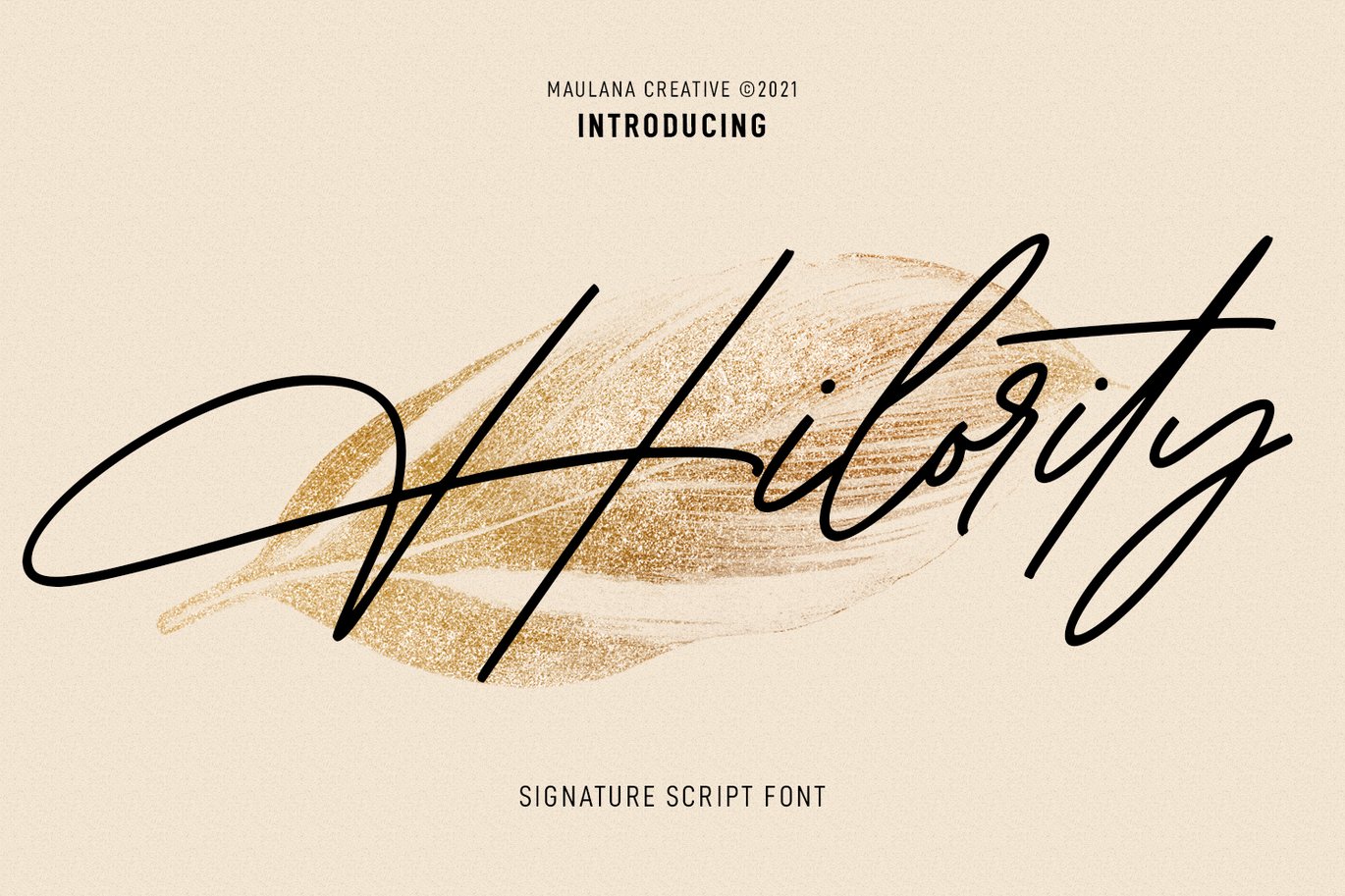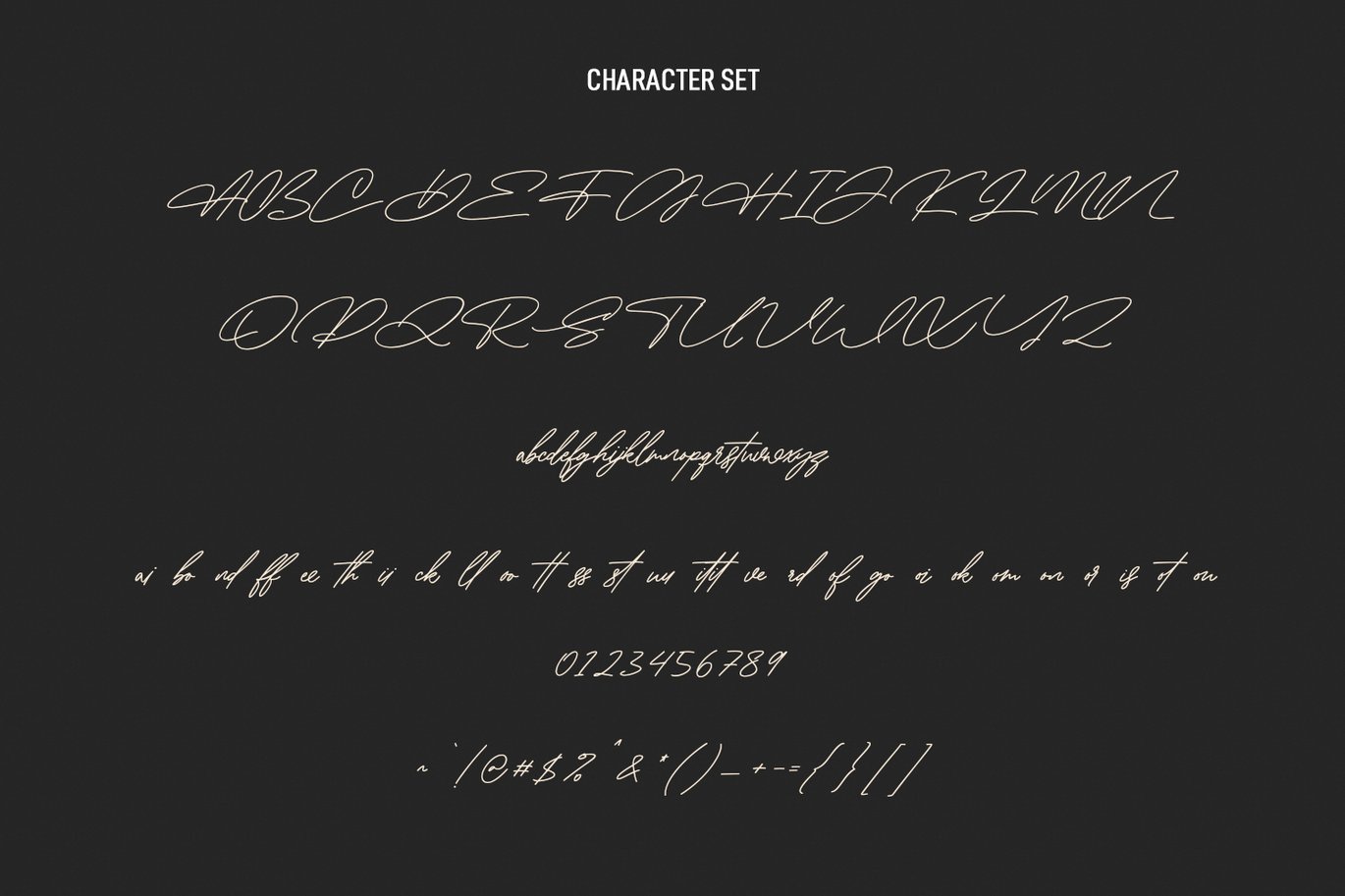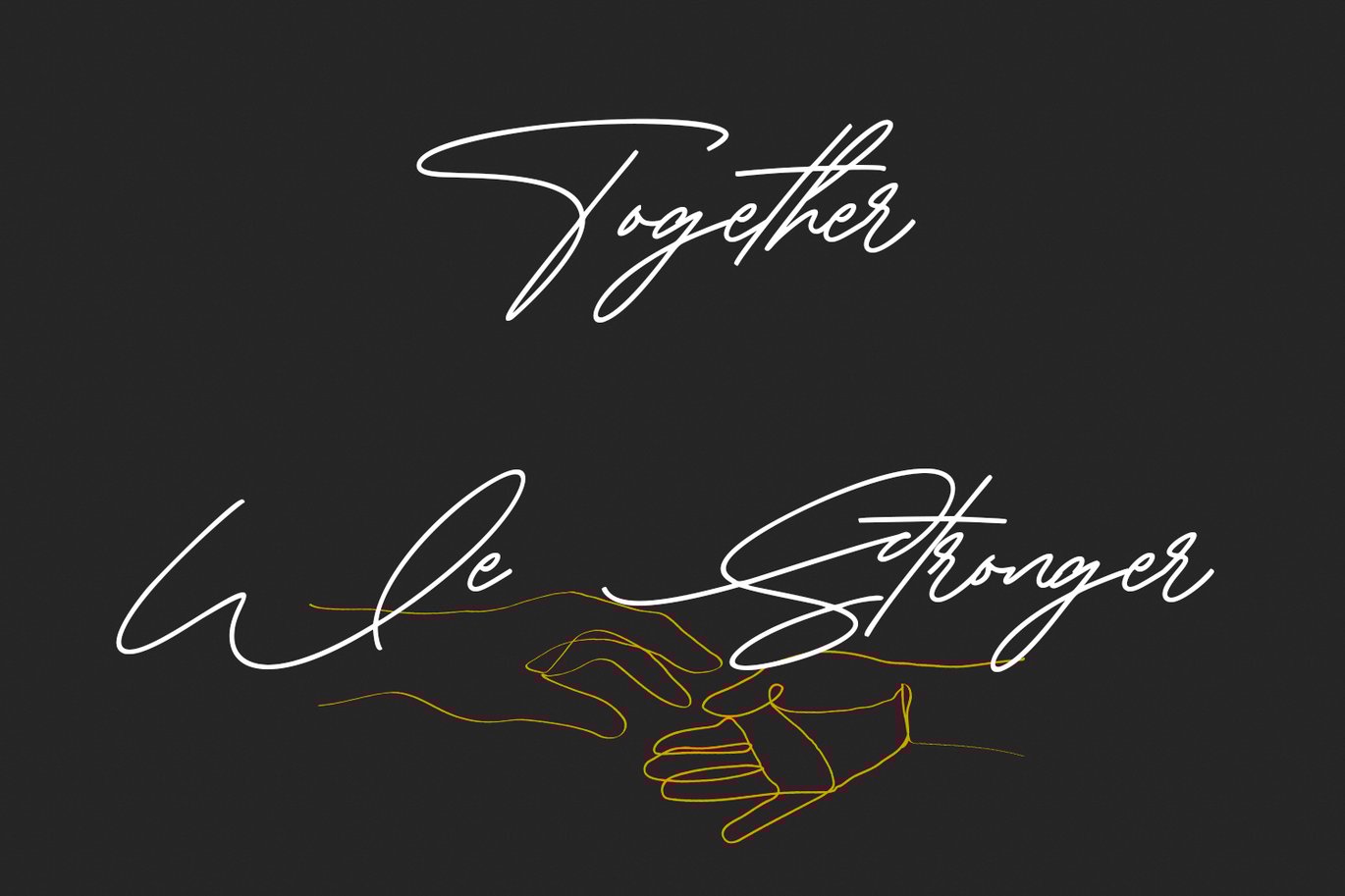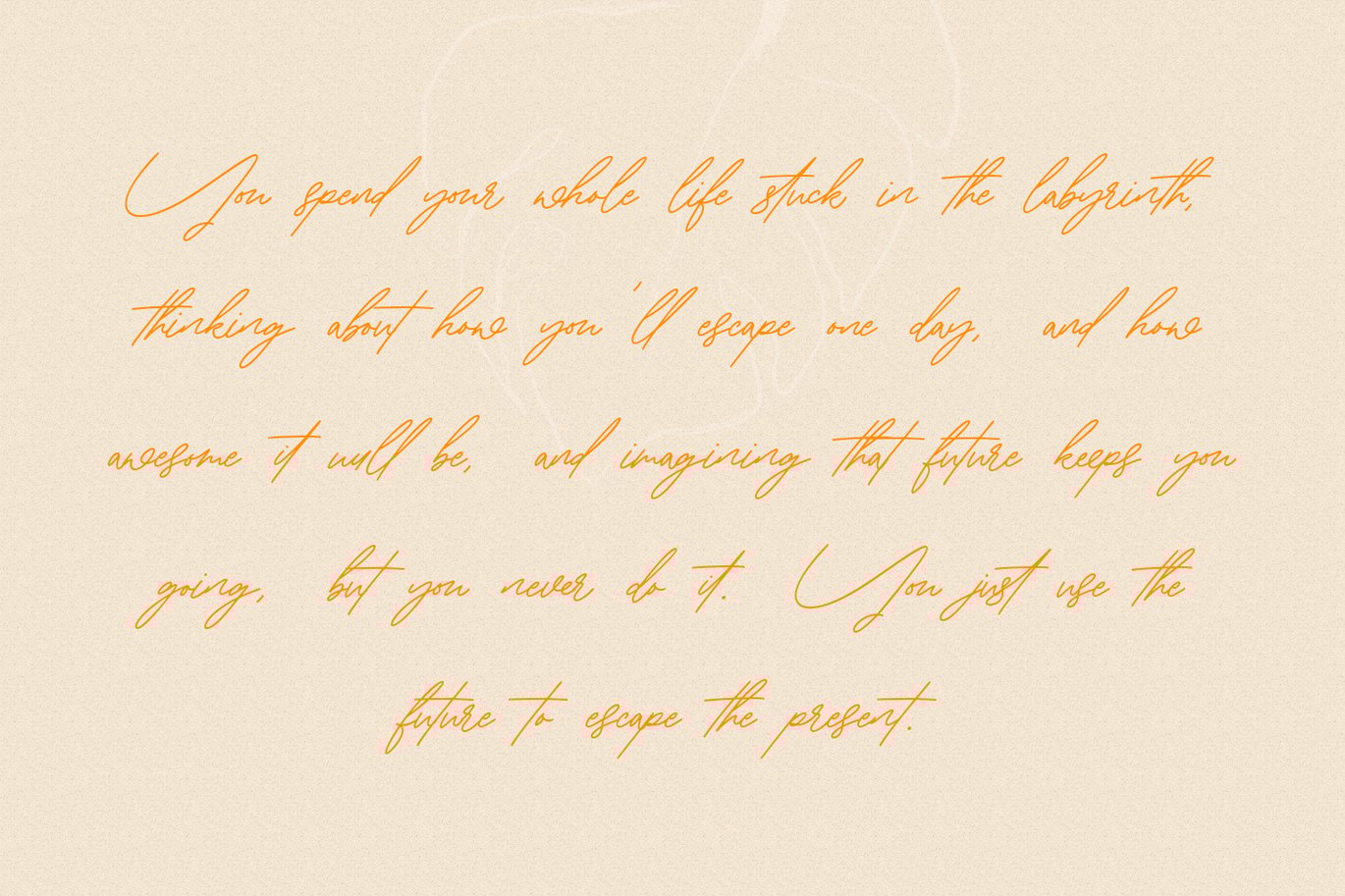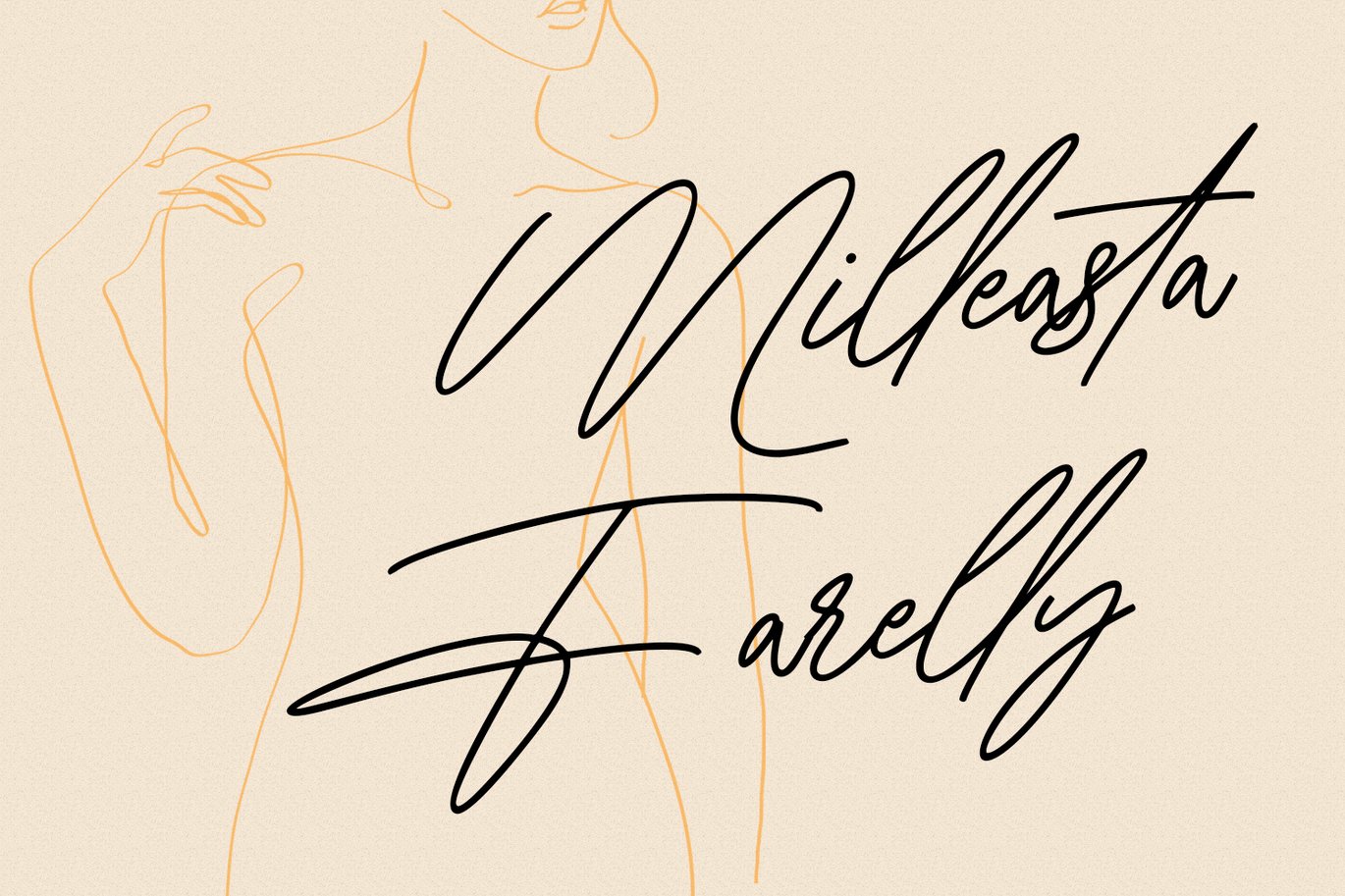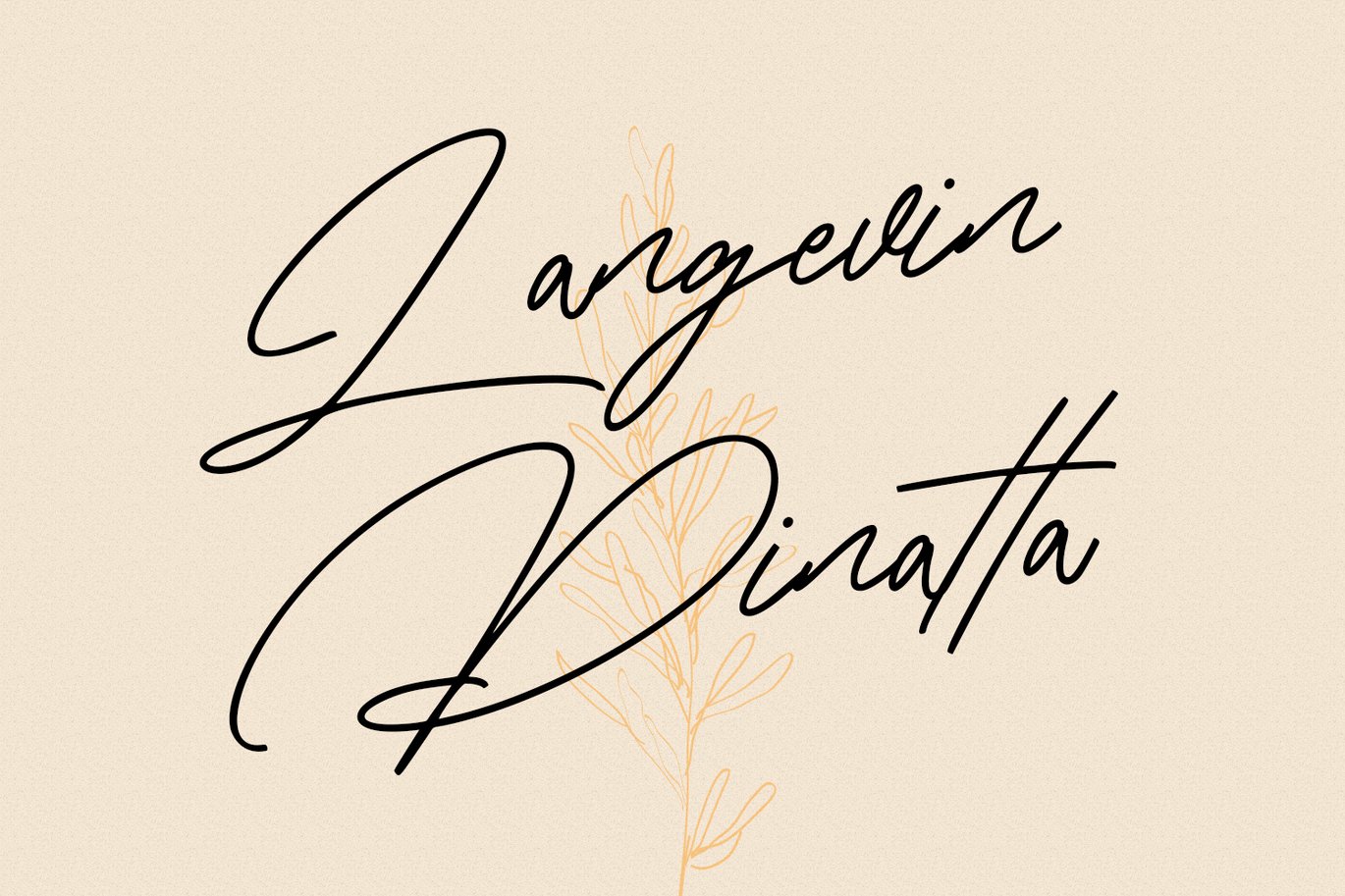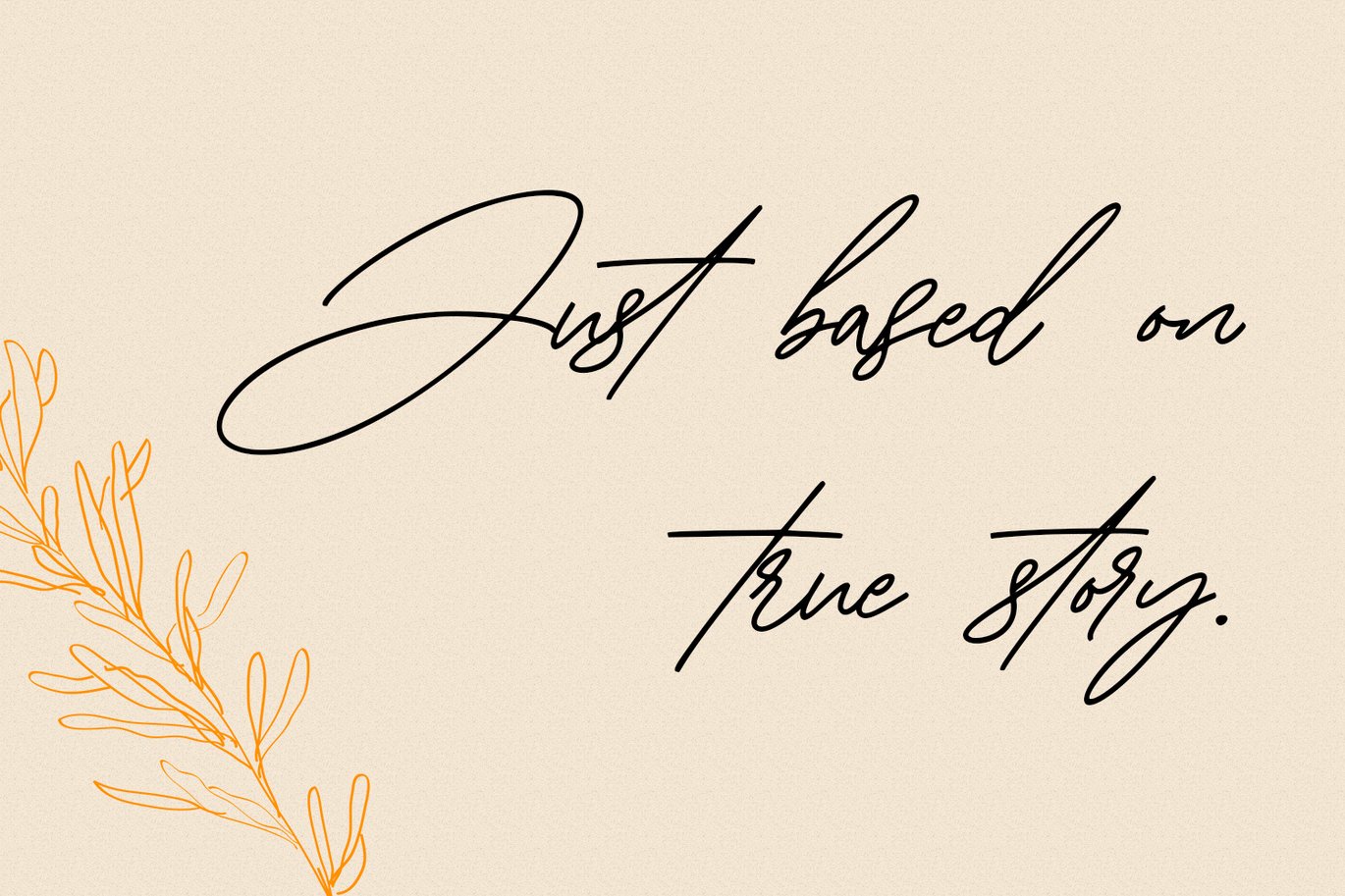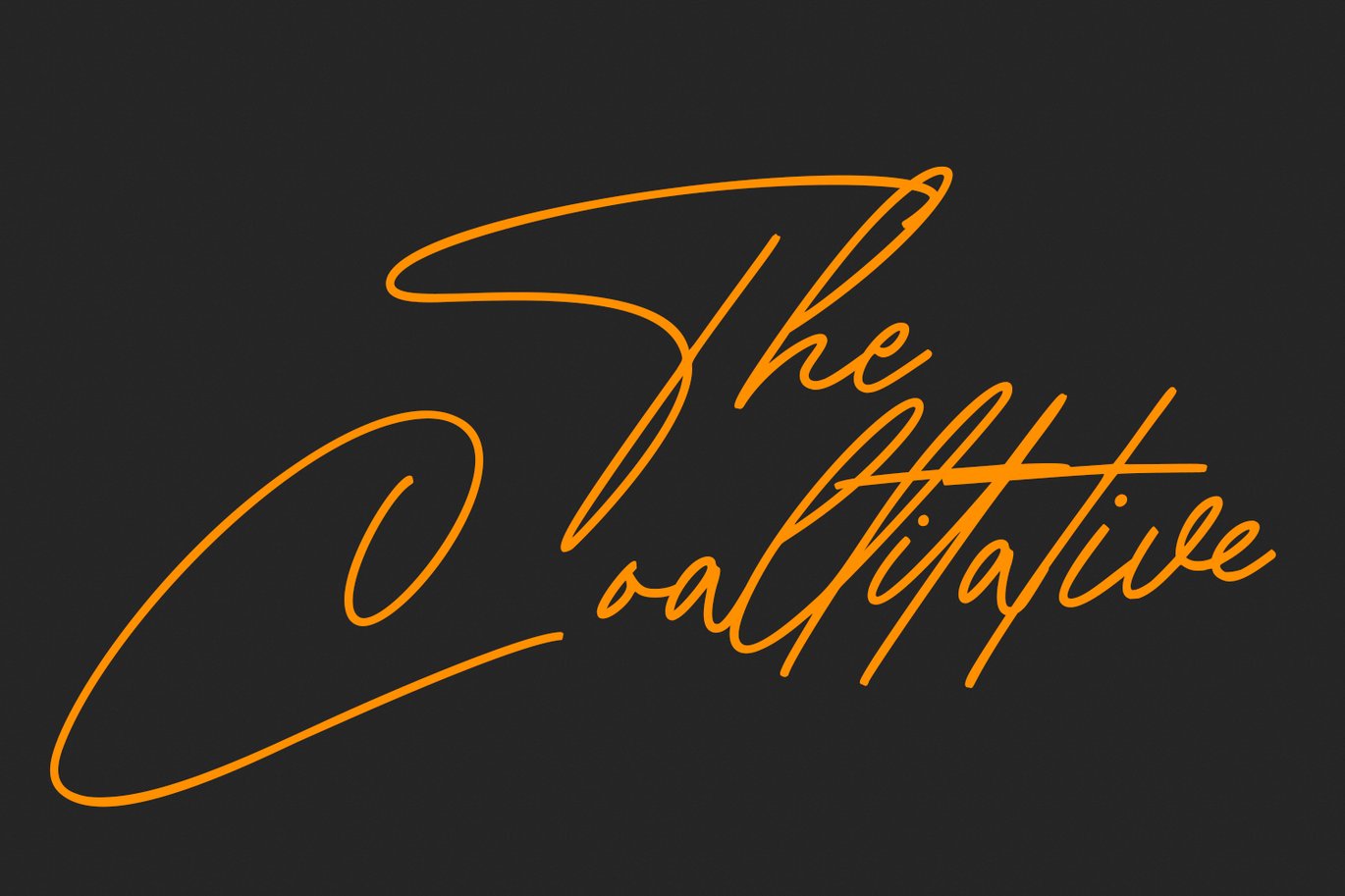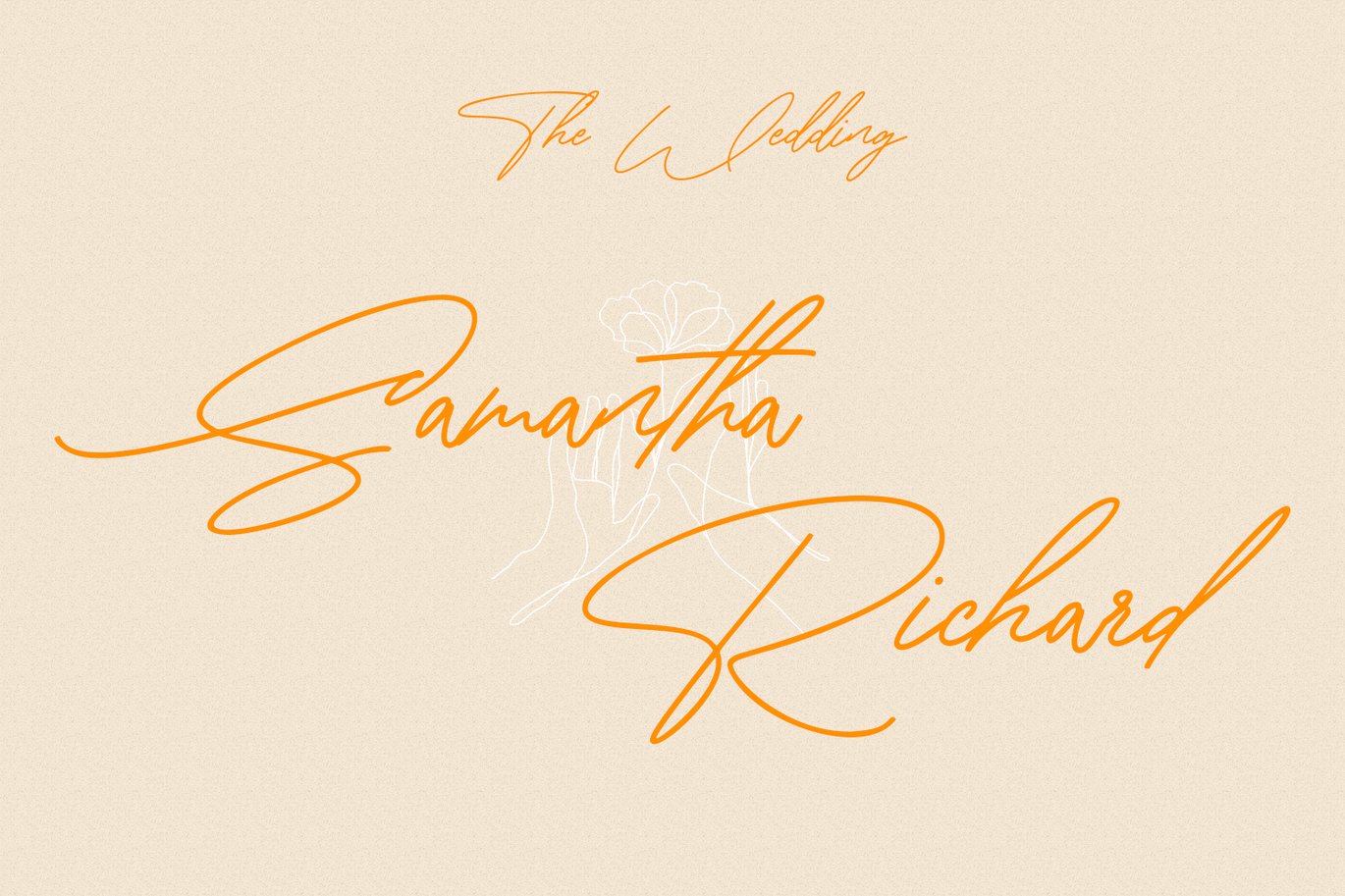
Hilority Signature Font
Hilority is an Expressive Signature script font. With light mono-line stroke, super slanted, Condensed and fun character with some of ligatures. To give you an extra creative work. Hilority font support multilingual more than 100+ language. This font is good for logo design, Social media, Movie Titles, Books Titles, a short text even a long text letter and good for your secondary text font with sans or serif. Make a stunning work with Hilority font.